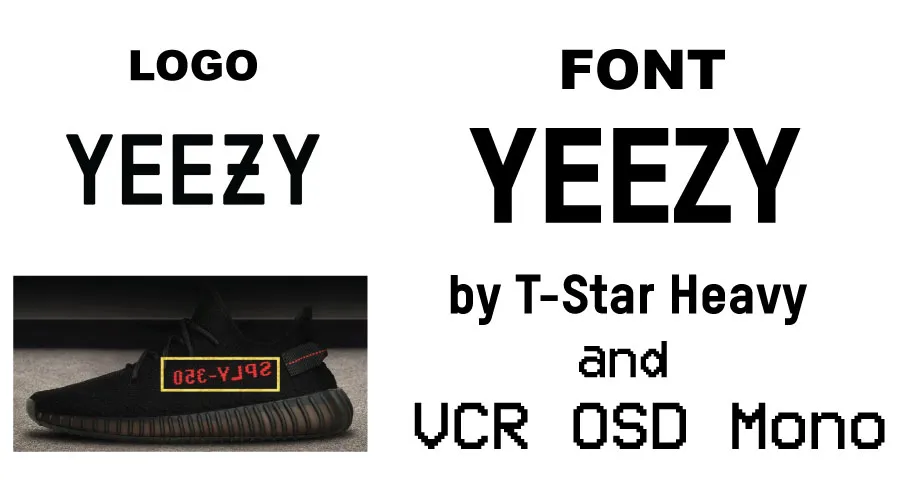
The Yeezy font comes from the sneaker and clothing brand Yeezy. The Yeezy logo font is similar to the T-Star Heavy Font, although it may have been modified or customized specifically for the brand. This customization adds a distinct touch to the logo and helps establish Yeezy’s visual identity. Check out the Yeezy logo vs T-Star Heavy Font comparison image below. Try the font on our generator.
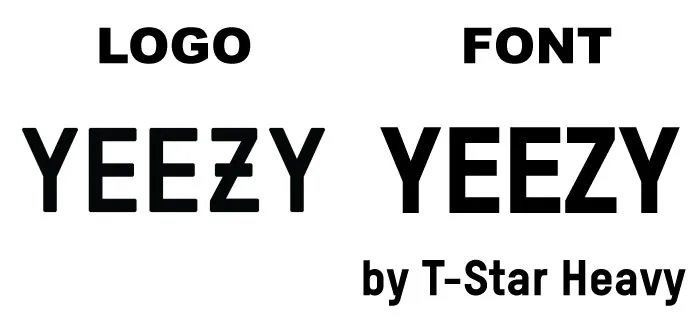
The T-Star Heavy Font gives the Yeezy logo a bold and impactful appearance. It is a sans-serif typeface with thick, blocky letterforms. In 2022, Mika Mischler created the font. You can download the font from our website and use it for personal purposes. For commercial use, please contact the owner.
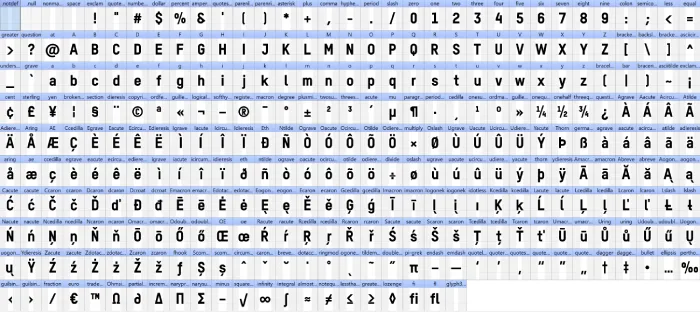
As for the font used on Yeezy shoes and parts of the Yeezy Supply website, it is similar to the VCR OSD Mono font created by Riciery Leal. This bitmap font adds a unique touch to the Yeezy brand’s visual identity. Take a look at the comparison image below. Also try this on our font generator.
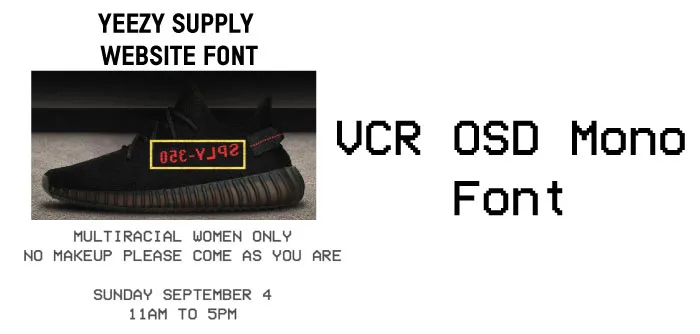
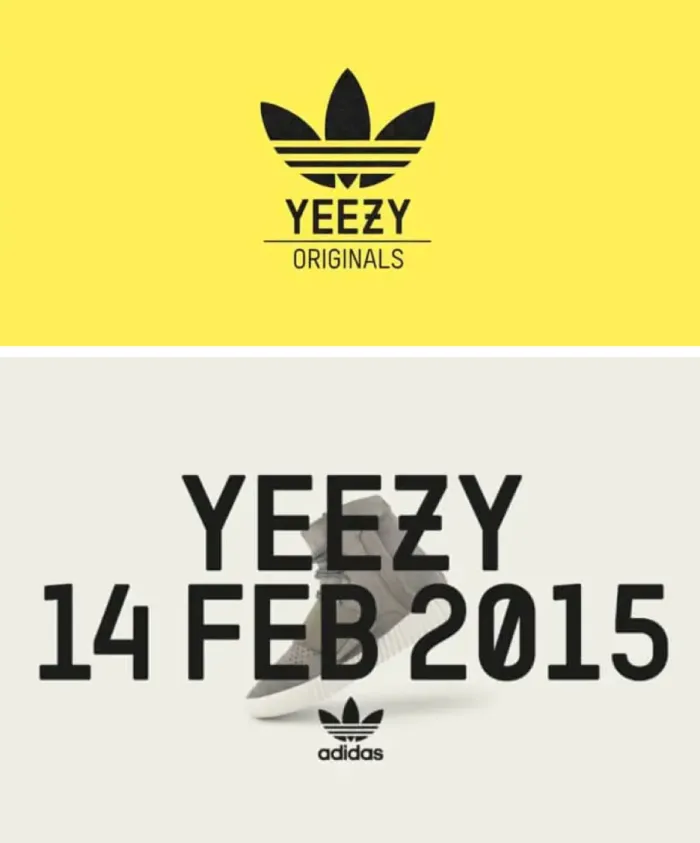
In conclusion, the Yeezy font plays a significant role in defining the visual identity of the Yeezy brand, renowned for its sneakers and clothing designed by Kanye West. The Yeezy logo font bears resemblance to the T-Star Heavy Font, while the font used on Yeezy shoes and parts of the Yeezy Supply website is similar to the VCR OSD Mono font. However, the future of the Yeezy brand is uncertain due to recent controversies surrounding Kanye West. Adidas has decided to sever ties with him and shut down the Yeezy Supply website in response to his controversial statements. Consequently, the Yeezy font may soon become a symbol of a once-popular brand that has fallen from its previous stature.